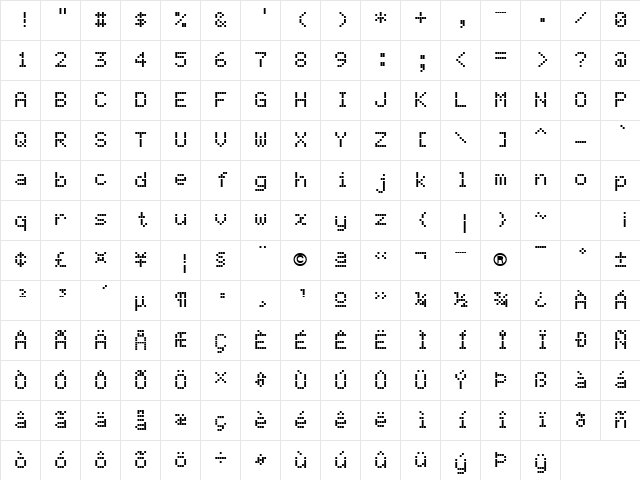
Bubbledot ICG Fine Pos Regular
Design Context for Bubbledot ICG Fine Pos Typeface
Bubbledot ICG Fine Pos is rooted in pixel-grid construction, making it a natural fit for game UI, retro computing aesthetics, and digital nostalgia projects.
A natural choice for retro game titles, chiptune music branding, 8-bit UI, and digital nostalgia projects.
Pro Tip: Pair Bubbledot ICG Fine Pos with flat colour palettes and simple geometric UI elements to reinforce its digital aesthetic.